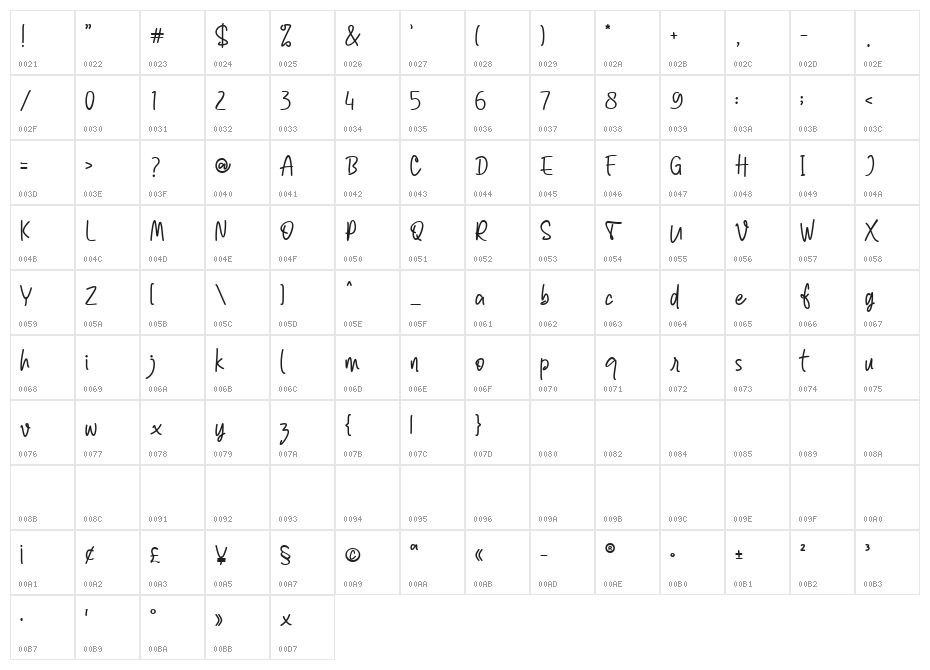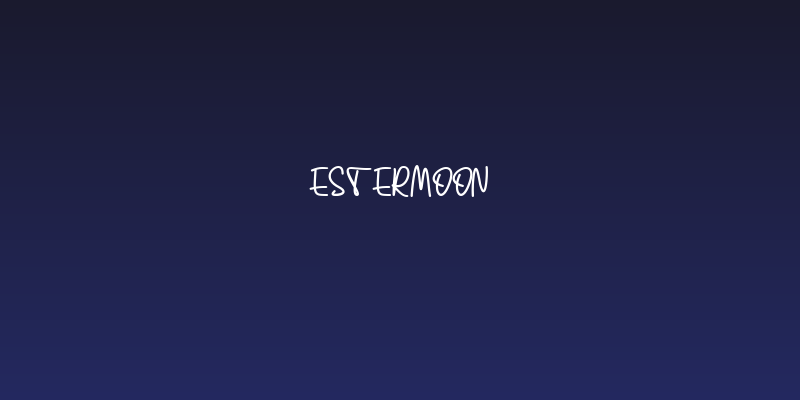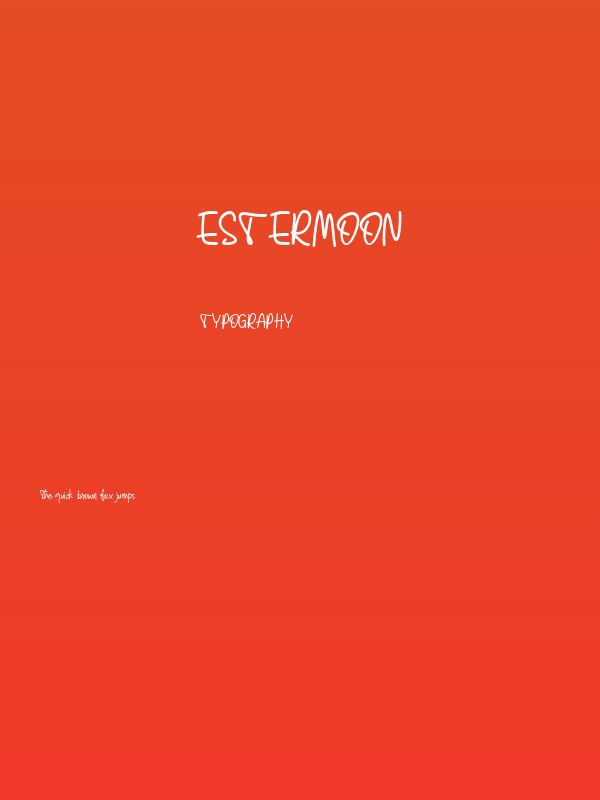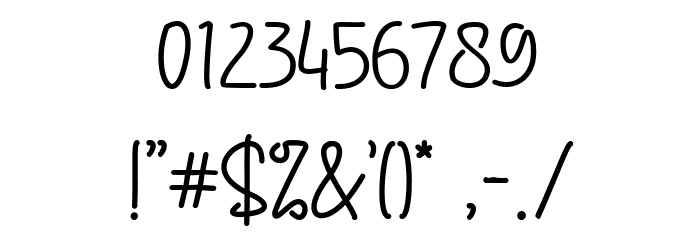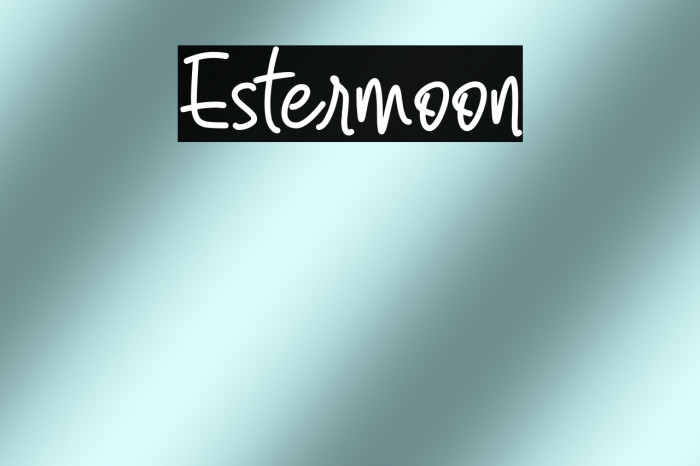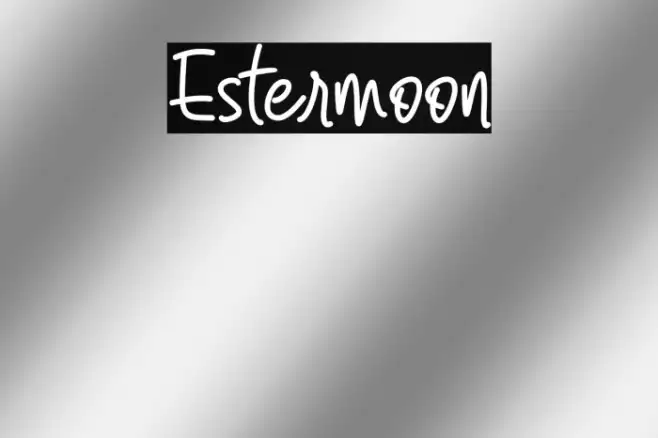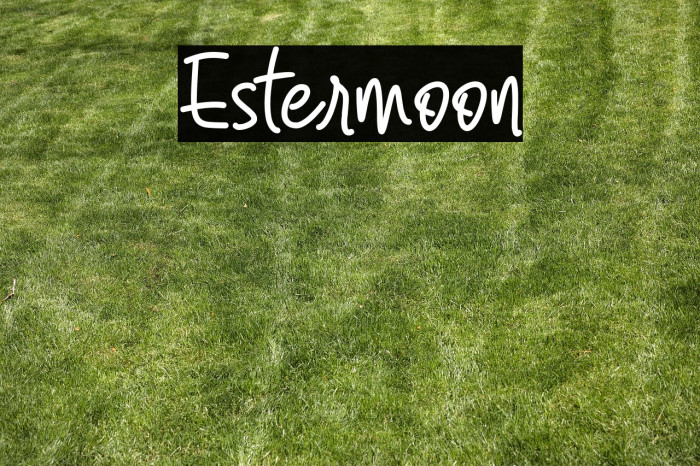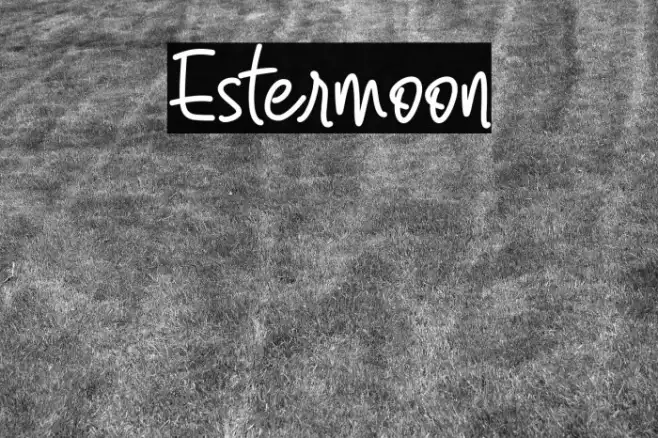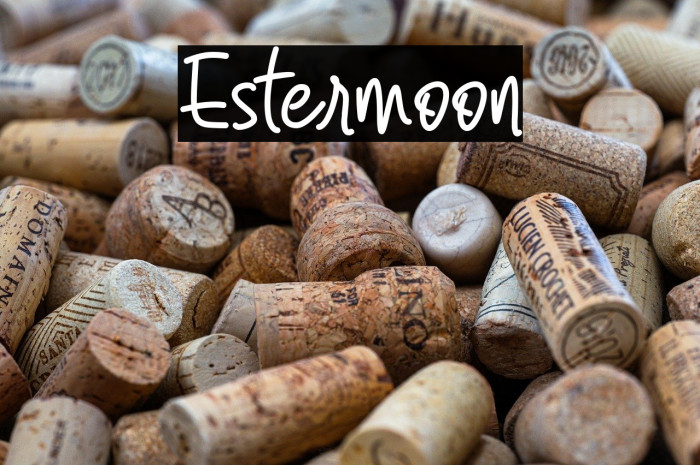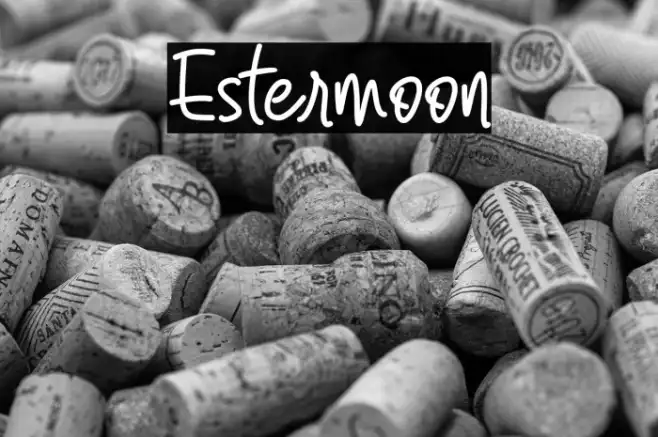
Estermoon Font
Estermoon Description
This font features a playful and casual handwritten style, characterized by its smooth, flowing lines and slightly irregular letterforms that give it a personal touch. The uppercase letters are bold and slightly taller, while the lowercase letters maintain a consistent baseline with a slight slant, adding to the informal feel. The numerals and special characters are designed to match the overall aesthetic, ensuring a cohesive look across all text. The strokes are moderately thick, providing good readability without sacrificing the font's whimsical charm.
| Use Case | Logos, Headlines, Social media graphics |
| Proposed Projects | Ideal for greeting cards, invitations, personal branding, and social media graphics. |